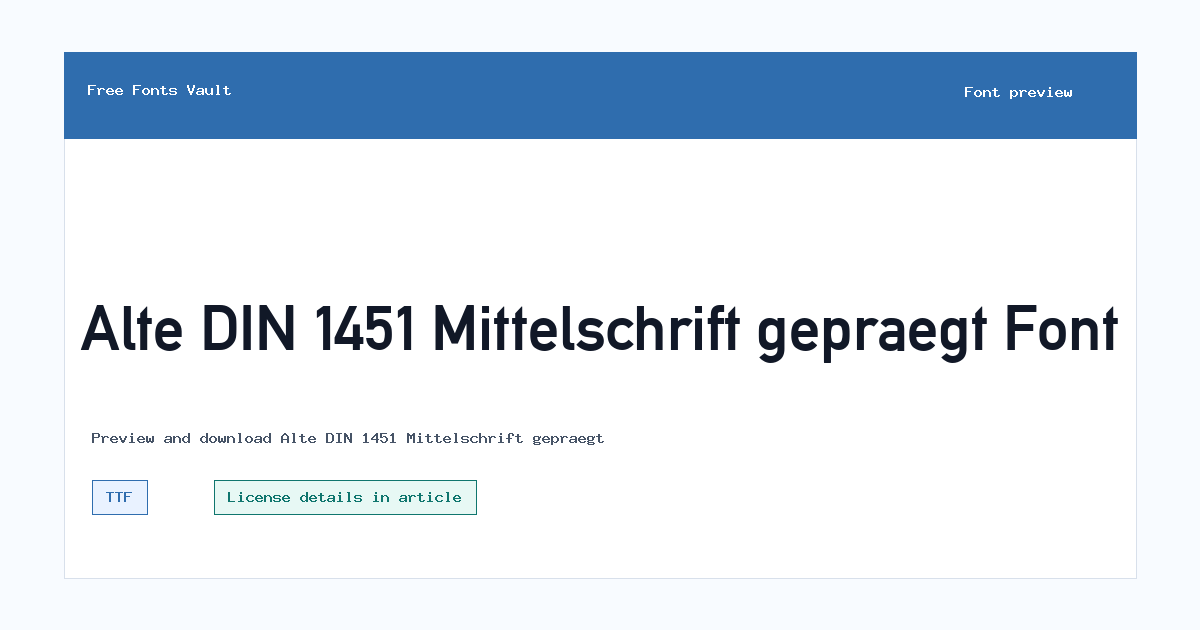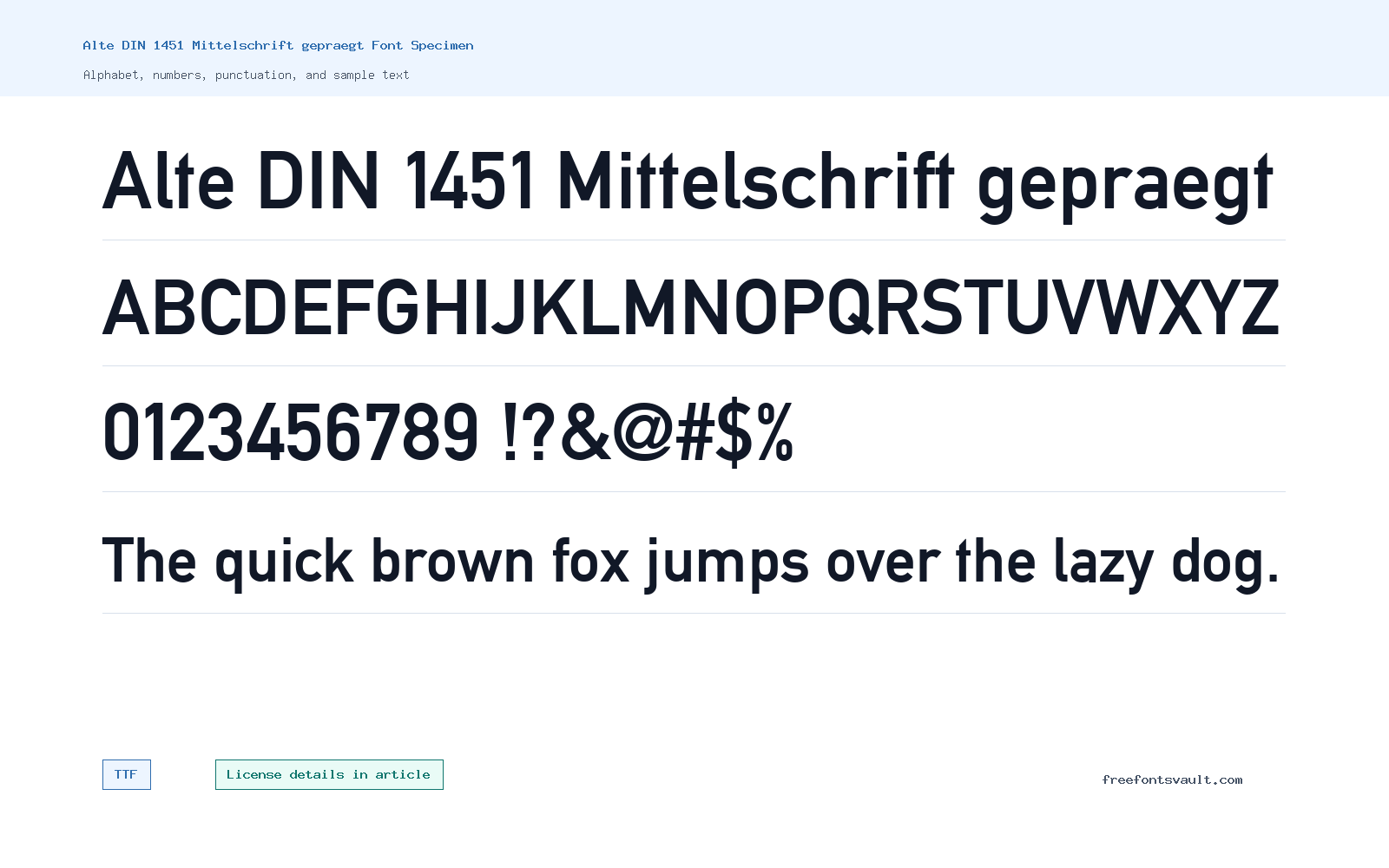
Alte DIN 1451 Mittelschrift gepraegt
- Designer Ludwig Goller
- Foundry Ludwig Goller
Alte DIN 1451 Mittelschrift gepraegt font.
Alte DIN 1451 Mittelschrift gepraegt is a DIN-inspired TrueType font with a structured, technical feel for signs, labels, posters, badges, and title blocks.
About Alte DIN 1451 Mittelschrift gepraegt
The name points to DIN 1451 Mittelschrift, a lettering tradition associated with clear engineered forms. The word gepraegt suggests a pressed or embossed treatment, so this cut is most useful when you want a practical industrial tone with a little physical texture.
Use it where short text needs to feel precise: signage-style headings, product labels, stamp-like badges, utility posters, interface mockups, catalog titles, or number-heavy layouts. It can work well for uppercase words and codes, but you should check spacing carefully because technical fonts can look crowded when the tracking is too tight.
For readable pages, pair it with a plain sans serif for paragraphs and keep this font for the moments that need the DIN character. If the embossed effect is strong at small sizes, move it up in size or use it only for titles and labels.
This font is also worth testing with numerals, because DIN-style faces are often chosen for practical information. Try dates, measurements, model names, and short navigation labels before using it in a finished design. If the pressed character is the main visual feature, keep the surrounding layout simple so the texture feels intentional rather than noisy.
- DIN-style structure with a practical mechanical tone
- Embossed or pressed character suggested by the gepraegt name
- Useful for uppercase text, numbers, short labels, and compact headings
- Best used with careful spacing and strong contrast
- Technical posters, signage concepts, and title blocks
- Labels, badges, product mockups, and wayfinding-style graphics
- Short uppercase headings, numeric details, and code-like text
- Editorial accents that need a precise engineered mood
- Design previews where a DIN-style face is needed quickly
Start with short words, labels, numbers, and title lines. Increase tracking for all-caps text, avoid cramped paragraphs, and compare it against your final background color before committing to a design. For website use, preview it in the browser at real sizes, because a treatment that looks strong in a large image can soften on small screens.
What does this font look best on?
It suits short technical text, signage-inspired headings, labels, badges, posters, and title blocks.
Is it comfortable for paragraphs?
It is better as a display or labeling font. Use a simpler companion face for long reading text.